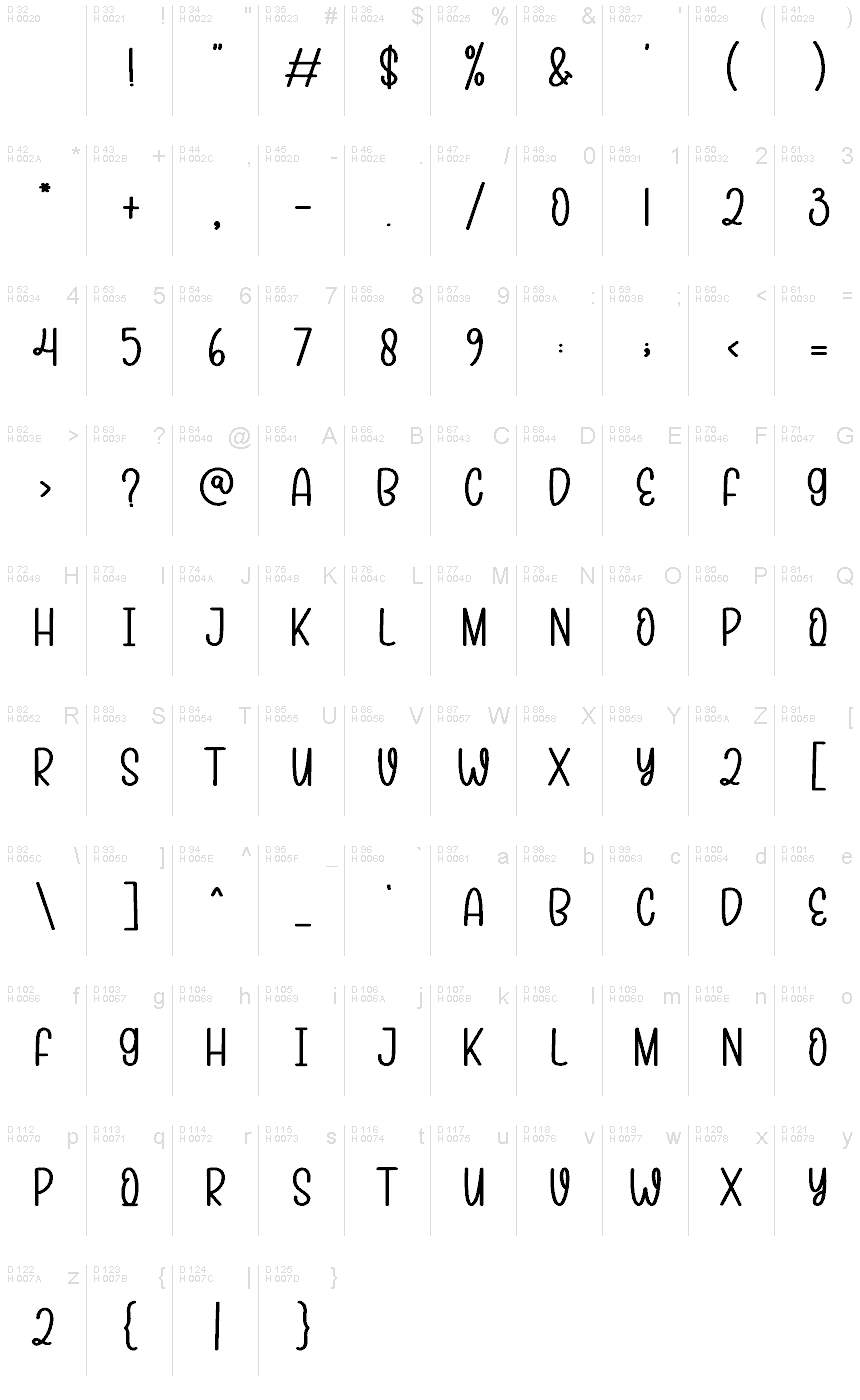
Flower Buds
Flower Buds font is a delightful handwritten font designed by Andi Moz. With its charming and whimsical style, this condensed font offers an organic and contemporary feel. The approachable design brings in a sense of intimacy with each use making it impossible to ignore in any context.